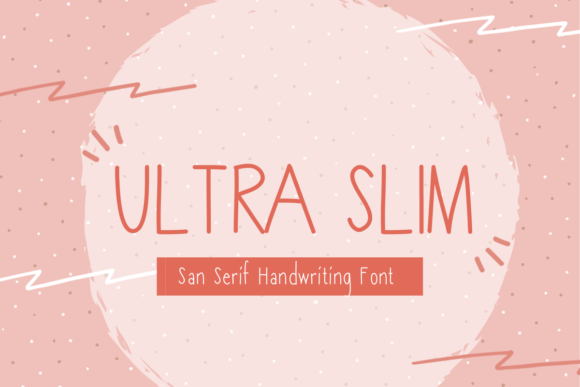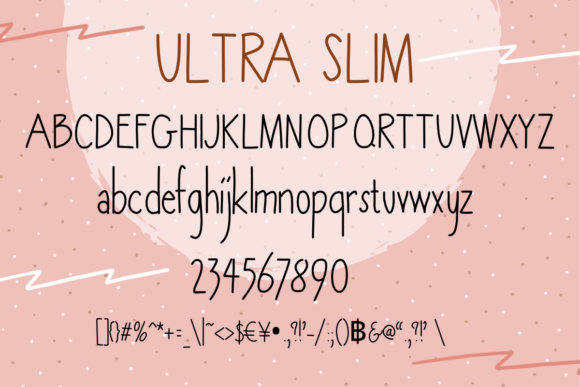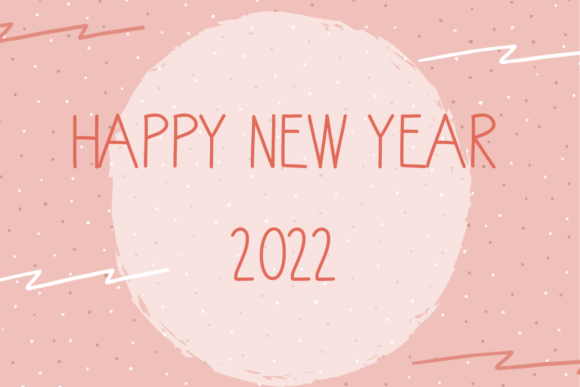
About Ultra Slim Font
Ultra Slim is a cute, tall and thin handwritten font.
You can employ it on party invitations, cards, beautiful stationary art, social media posts, and much more!